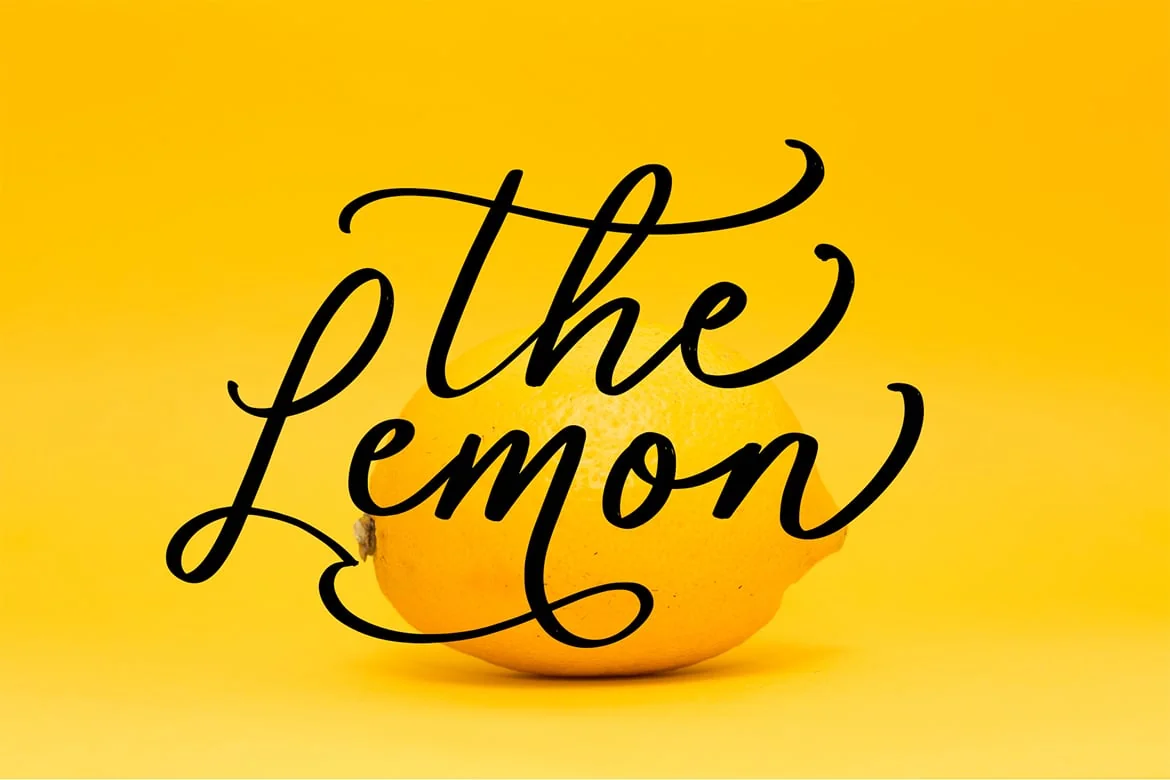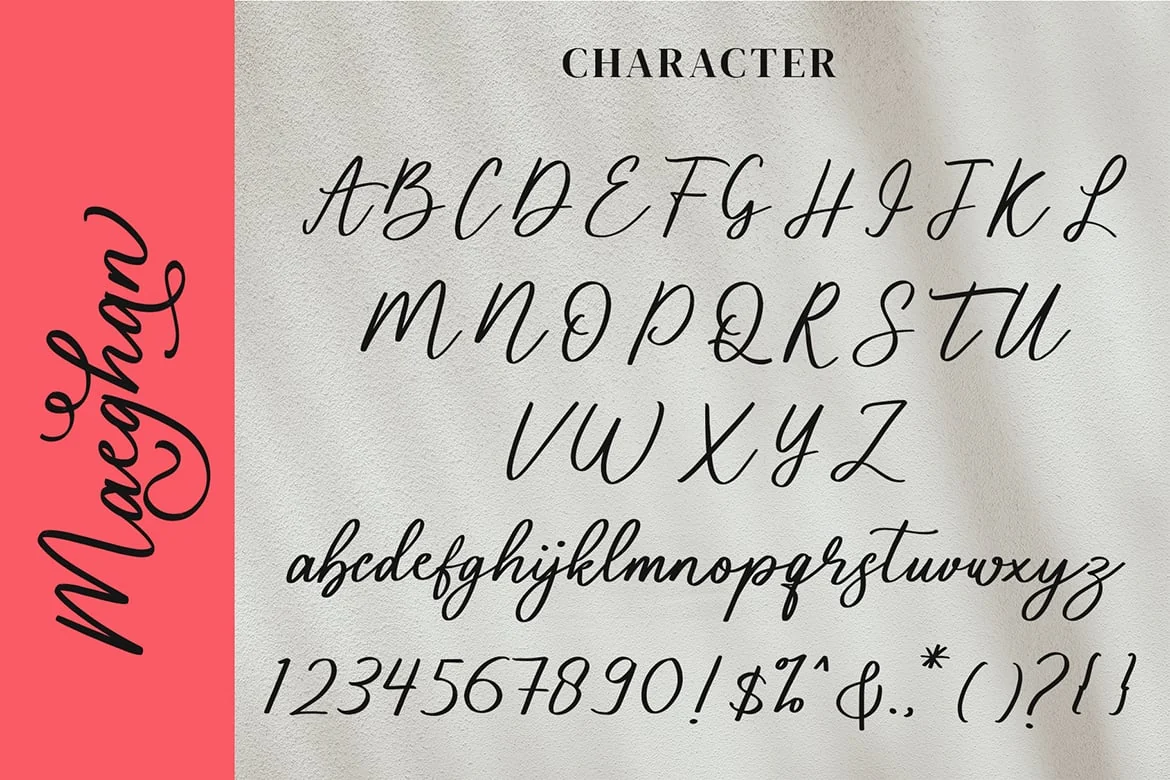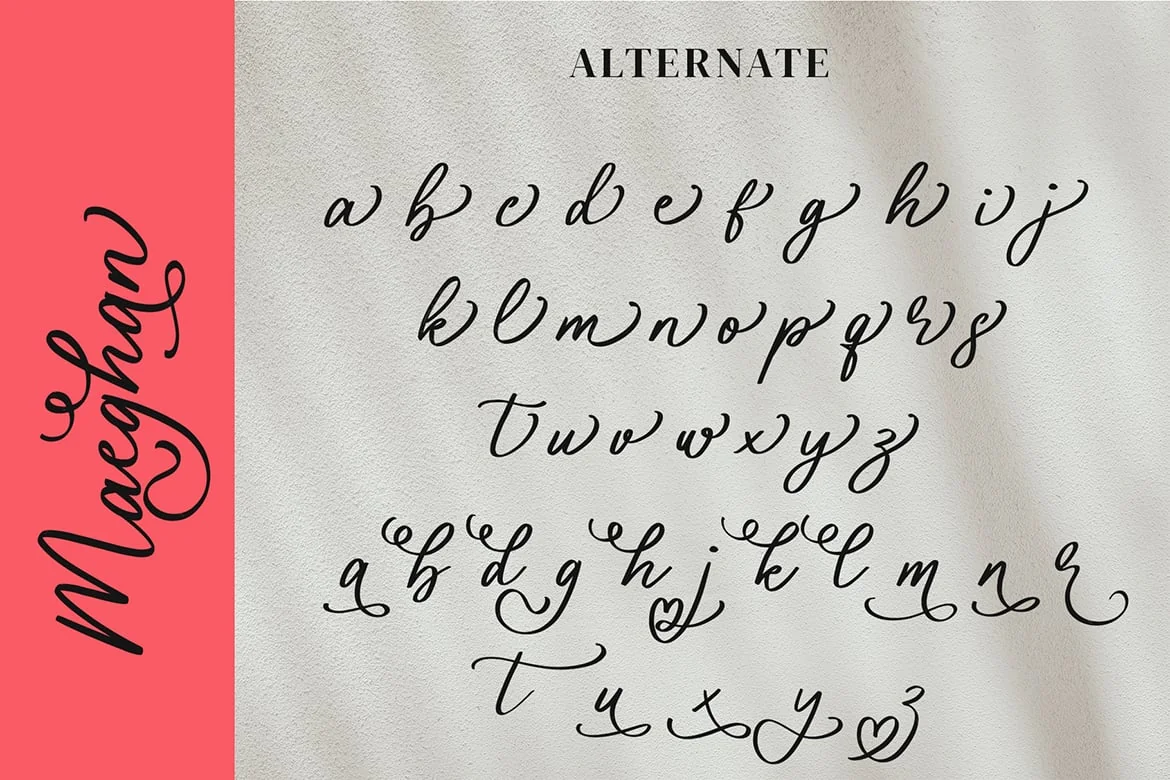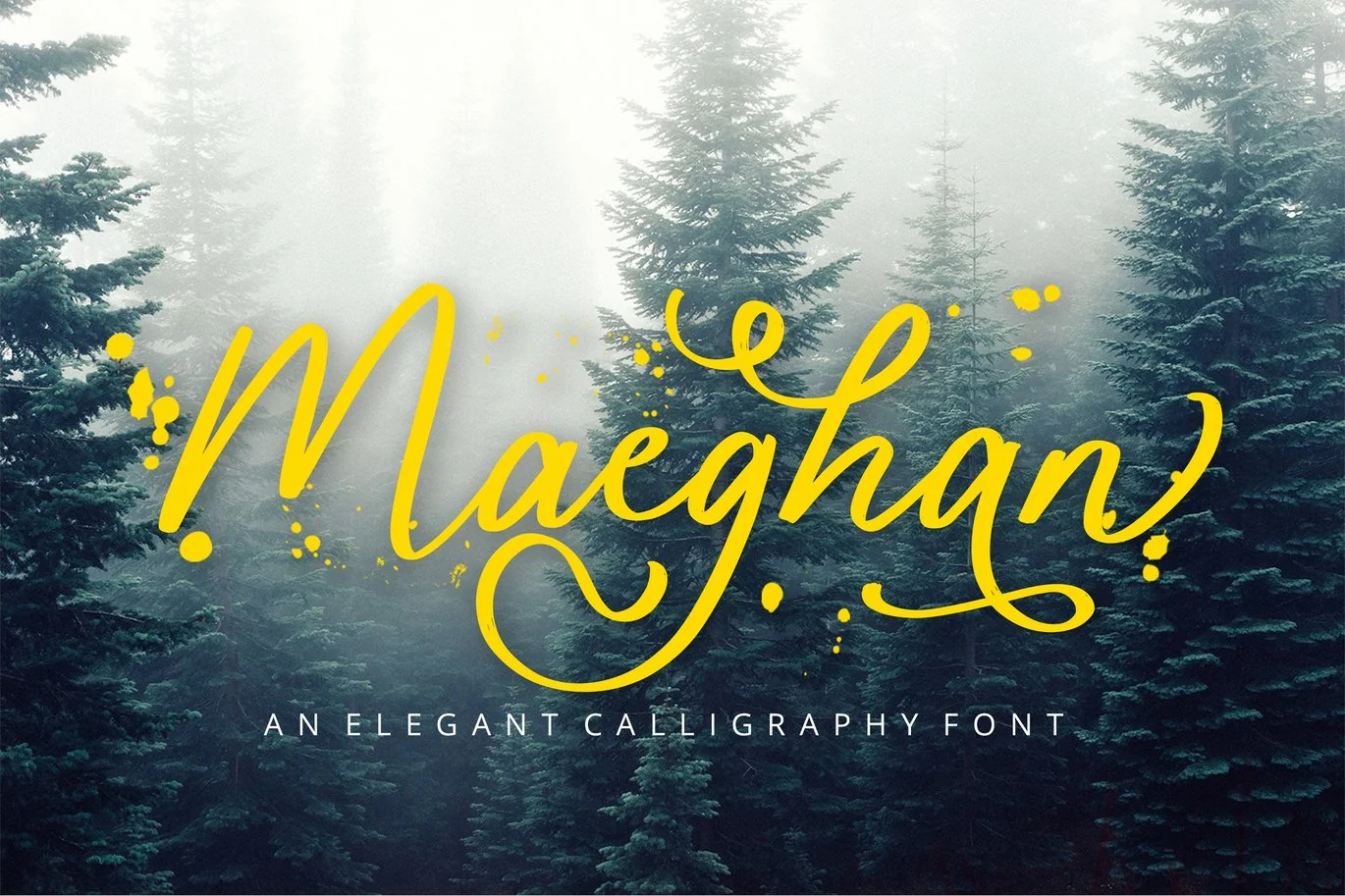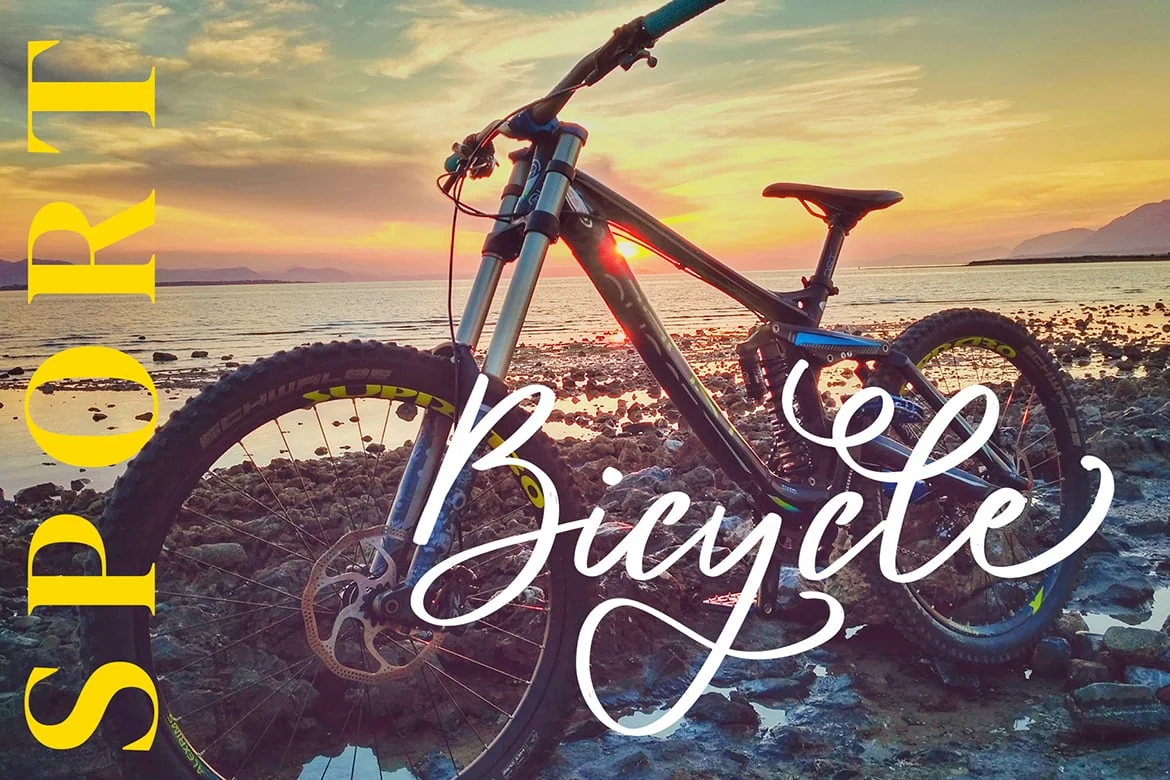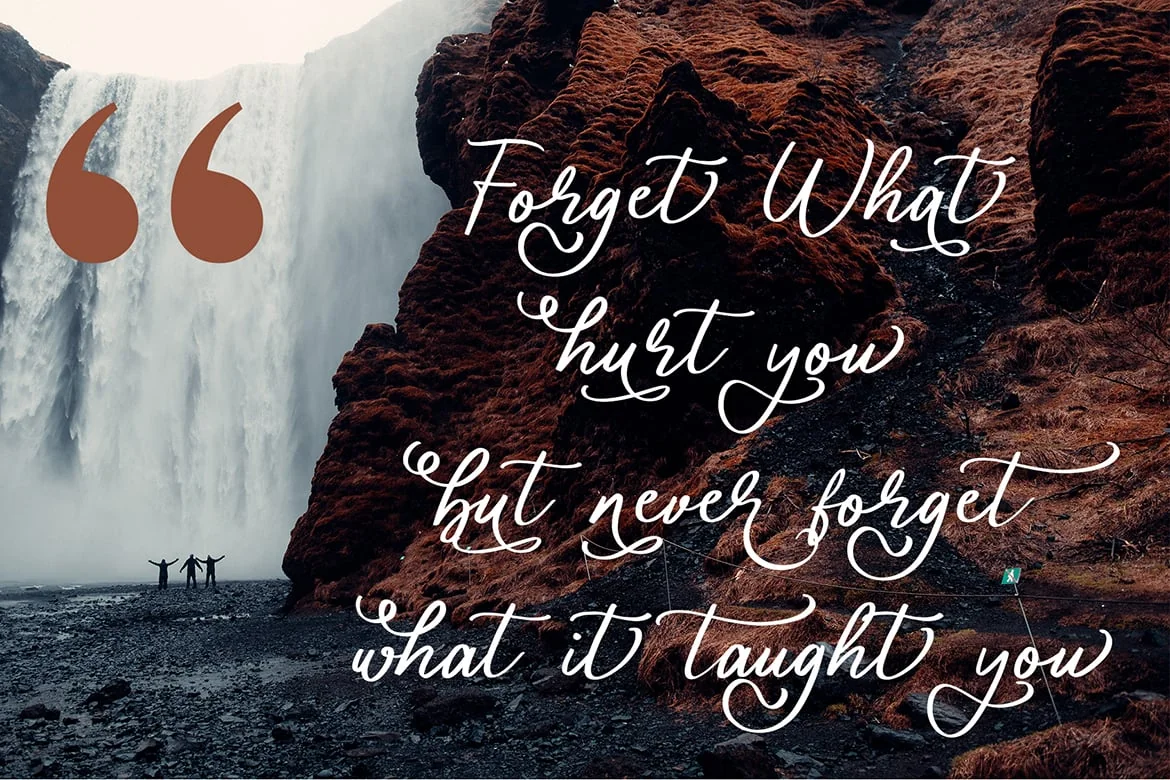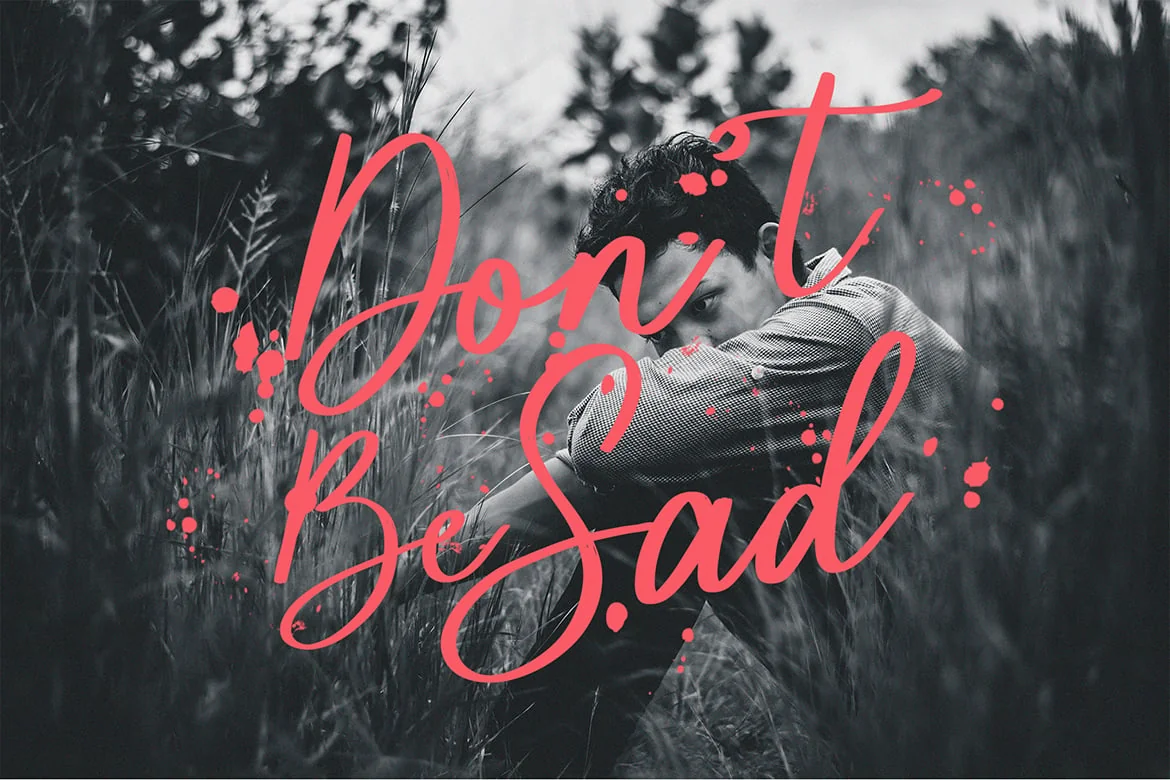
Maeghan Calligraphy Font
Maeghan is a beautiful calligraphy font with a unique alternate. This beautiful script can make your text appear elegant, luxurious, and modern!